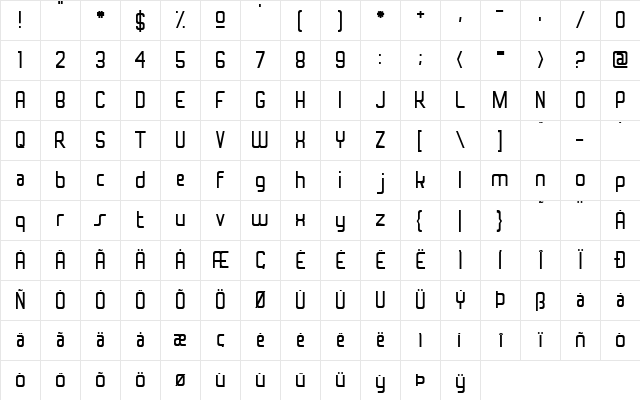
Complete Superfly 2001 Normal glyph index. Displaying only characters natively supported by Superfly 2001 Normal font.
Superfly 2001 is a composed and adaptable typeface that performs quietly and consistently across a wide range of design contexts.